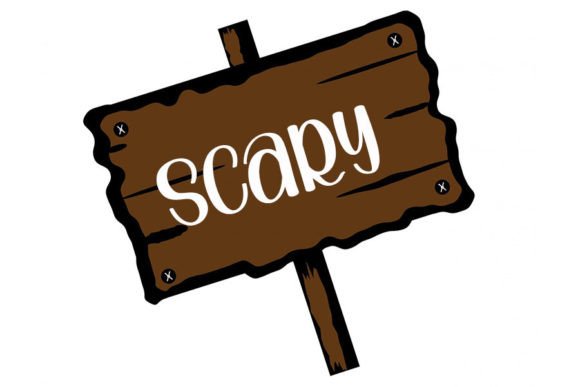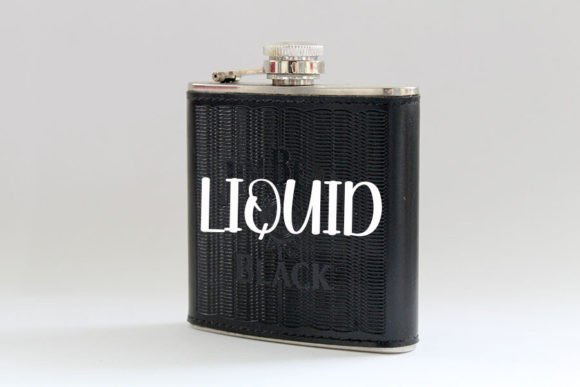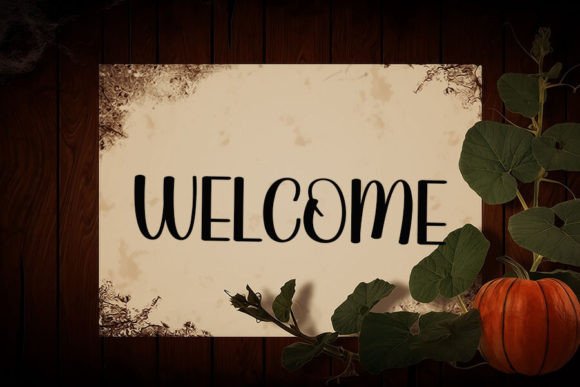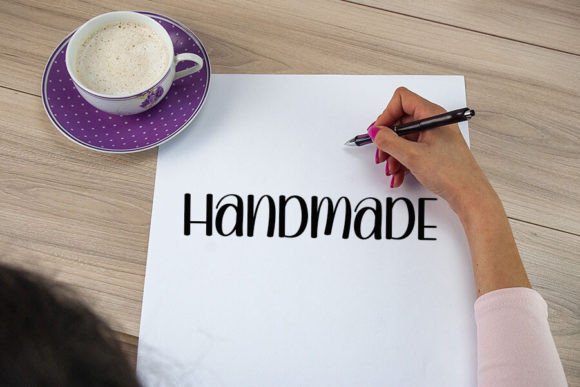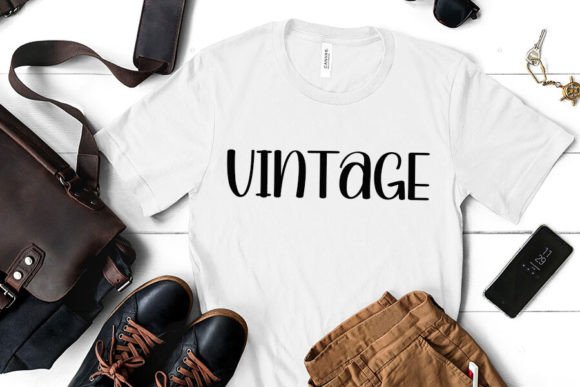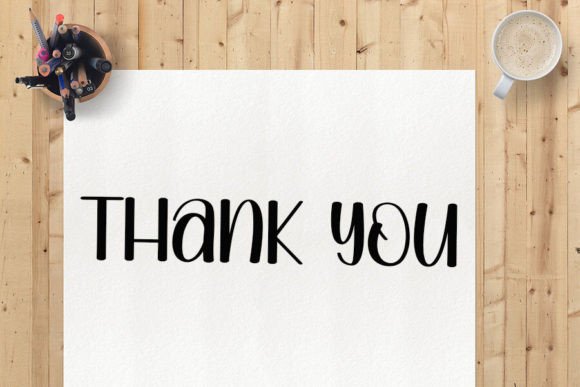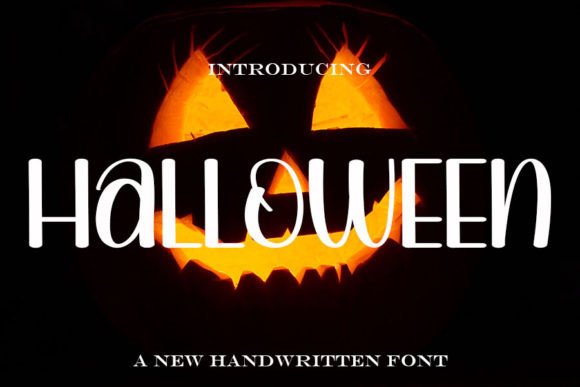
Unleash the Spooky Spirit with Halloween Font: A Beautiful Handwritten Typeface
As the spookiest time of the year approaches, designers and crafters are on the lookout for the perfect typography to capture the essence of Halloween. Look no further than the Halloween Font, a neat and beautiful handwritten font that exudes an elegant touch, making it perfect for your favorite projects. With its incredibly distinct and timeless style, this font is sure to fall into your heart and inspire spectacular designs!
The Charm of Halloween Font
The Halloween Font is a stunning handwritten typeface that boasts an elegant and refined aesthetic. Its unique charm lies in its ability to evoke a sense of nostalgia and whimsy, making it an ideal choice for designers and crafters looking to create eye-catching designs that stand out from the crowd. Whether you’re working on a Halloween-themed project, a seasonal invitation, or simply want to add a touch of autumnal flair to your design, this font is sure to impress.
Key Features of Halloween Font
- Elegant and Refined Aesthetic: The Halloween Font features a beautiful, handwritten design that exudes sophistication and elegance.
- Distinct and Timeless Style: Its unique style sets it apart from other fonts, making it a great choice for designers looking to create memorable designs.
- Perfect for Various Projects: From Halloween-themed designs to seasonal invitations, this font can be used for a wide range of projects.
- Easy to Read and Versatile: The Halloween Font is clear, legible, and versatile, making it suitable for both digital and print designs.
How to Use Halloween Font in Your Designs
Using the Halloween Font in your designs is easy and straightforward. Here are a few tips to get you started:
- Pair it with Other Fonts: Combine the Halloween Font with other fonts to create a unique and eye-catching design.
- Play with Sizes: Use different font sizes to create visual hierarchy and emphasize certain elements in your design.
The Halloween Font offers endless possibilities for designers and crafters looking to create stunning designs. Here are a few ideas to get you started:
- Halloween Invitations: Create spooky and inviting Halloween invitations that set the tone for a howling good time.
- Seasonal Decorations: Use the Halloween Font to create festive decorations, such as banners, garlands, and signs.
- Digital Designs: Add a touch of Halloween magic to your digital designs, including social media graphics, blog posts, and email newsletters.
- Crafting Projects: Use the Halloween Font to create custom titles, labels, and tags for your crafting projects, such as scrapbooking, card making, and DIY decorations.
The Halloween Font is a beautiful and versatile handwritten typeface that’s perfect for designers and crafters looking to add a touch of elegance and whimsy to their designs. With its distinct and timeless style, this font is sure to inspire spectacular designs that capture the essence of Halloween. So why wait? Fall in love with the Halloween Font and start creating your own spooky and spectacular designs today!